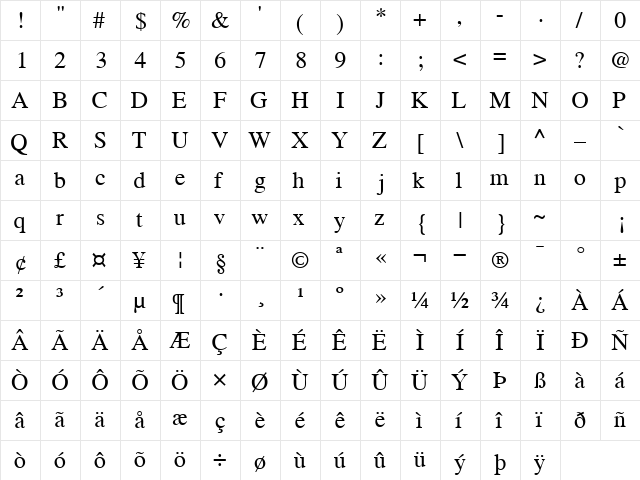
GrecoSSK Regular
Design Context for GrecoSSK Typeface
GrecoSSK takes a measured approach to typography — its balanced proportions and neutral character make it a reliable workhorse for both digital and print work.